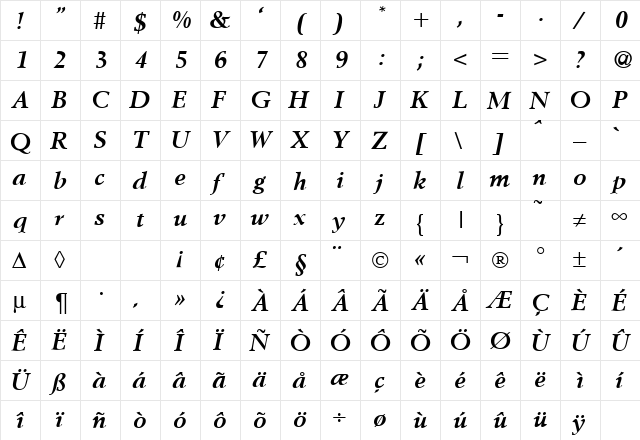
Bestseller BoldItalic
Design Context for Bestseller Typeface
Bestseller offers clean, dependable letterforms without strong stylistic allegiance, making it a practical choice for designers who need flexibility. The slanted form adds forward momentum and visual energy. The heavy weight commands attention and anchors typographic hierarchies.
Pro Tip: Try Bestseller for annotation and caption copy alongside an upright companion — the contrast in angle creates a dynamic but ordered typographic system.